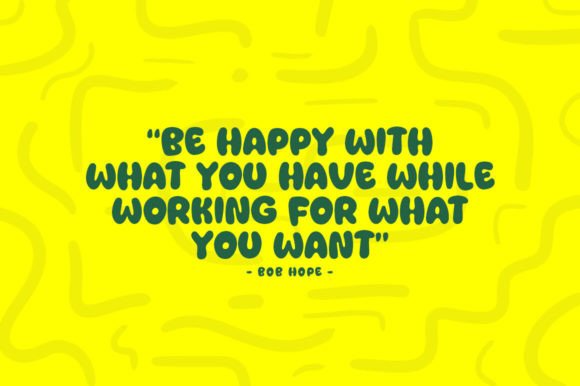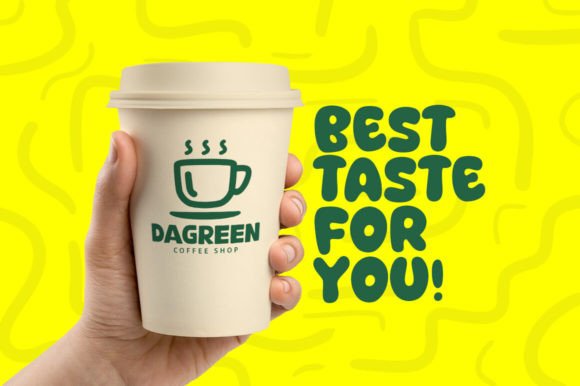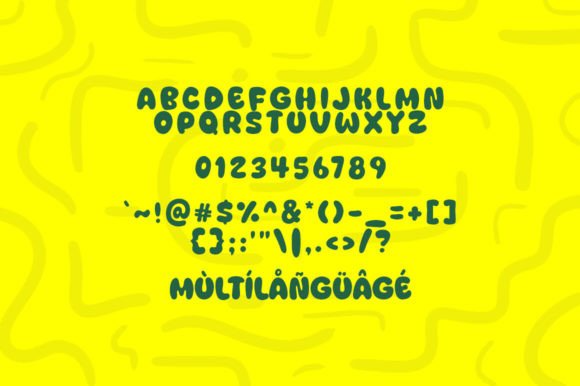
Introduction to Green Yellow Font
Remember that moment when you’re brainstorming ideas for a new design project, and you stumble upon the perfect font that brings your concept to life? For many designers, that moment is pure magic. And if you’re looking for a font that can elevate your creative projects, we’ve got you covered.
Introducing the Green Yellow Font, a modern and cute display font that’s perfect for posters, logos, magazines, book covers, banners, and many more! With its high-quality design and transparent background, this font is a valuable resource for any designer looking to add a touch of personality to their work. Whether you’re working on a free download or a paid project, the Green Yellow Font is sure to make your designs stand out.
As a design resource, this font is incredibly versatile and can be easily matched to a wide range of creative projects. So why settle for a generic font when you can add a pop of color and personality to your work with the Green Yellow Font?
Key Features of Green Yellow Font
- Features a unique Green Yellow color scheme, perfect for modern and vibrant designs.
- Comes with a transparent background, allowing for easy layering and customization in design projects.
- Designed at a high resolution (300 DPI) for optimal print quality and web use.
- Font size ranges from 12 to 72 points, providing flexibility for various design applications.
- Ideal for use in logos, branding materials, and other design elements where a bold and eye-catching font is required.
Honest Review: Green Yellow Font
The Green Yellow Font is of high quality and offers a unique combination of green and yellow hues that work perfectly for creative projects that require a playful and vibrant touch.
- ✨ Unique color combination that’s perfect for branding and advertising projects
- ✨ High quality, making it ideal for large-scale prints and presentations
- ✨ Transparent background, making it easy to customize and combine with other design elements
- ⚠️ Limited font styles and variations available
- ⚠️ May not be suitable for formal or corporate projects due to its playful nature
Overall, I’m impressed with the Green Yellow Font and would definitely recommend it for designers looking for a fun and creative design resource. However, keep in mind its limitations and use it accordingly.
Tips for Getting the Most Out of Green Yellow Font
Use a transparent background to make the font stand out in your design. You can also experiment with different font sizes and styles to create a visually appealing effect.
Green Yellow Font is ideal for use in social media graphics, posters, and brochures. Its high-quality design makes it perfect for creative projects where attention to detail is crucial.
Alternatives to Green Yellow Font
Open Sans is a highly legible and versatile sans-serif font that can be used for a wide range of creative projects. It’s a great choice for designs that require a clean and modern look. Open Sans is available for free download and is highly customizable.
Compared to Green Yellow Font, Open Sans has a more neutral color palette and a more subtle design. It’s a better choice for designs that require a high level of professionalism and sophistication.
Montserrat is a geometric sans-serif font that’s perfect for designs that require a touch of modernity and elegance. It’s a great choice for high-quality designs that require a lot of text, such as brochures and magazines. Montserrat is available for free download and has a transparent background.
Compared to Green Yellow Font, Montserrat has a more dramatic and modern design. It’s a better choice for designs that require a lot of text and a high level of sophistication.
Lato is a modern sans-serif font that’s perfect for designs that require a clean and elegant look. It’s a great choice for creative projects that require a high level of professionalism and sophistication. Lato is available for free download and has a transparent background.
Q: Does the Green Yellow Font have a transparent background?
Yes, the Green Yellow Font has a transparent background, making it perfect for use on images or backgrounds with complex designs. This feature allows you to easily overlay the font on top of your design without any visual clutter.